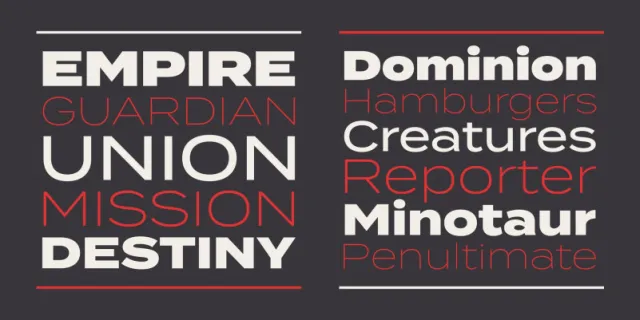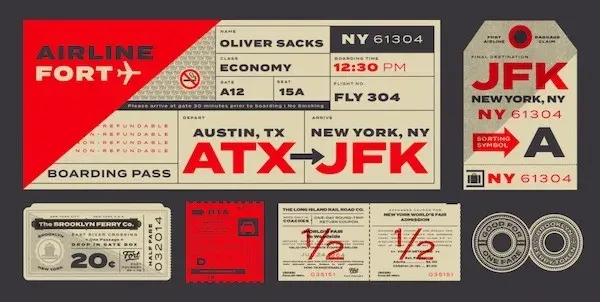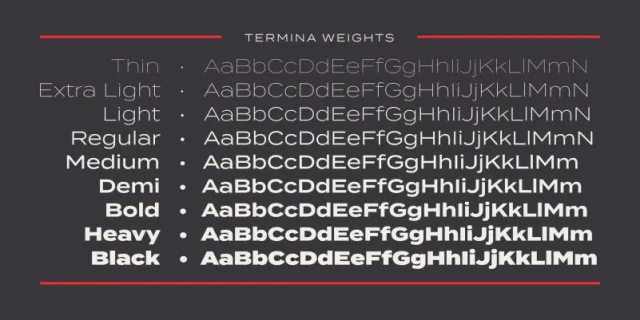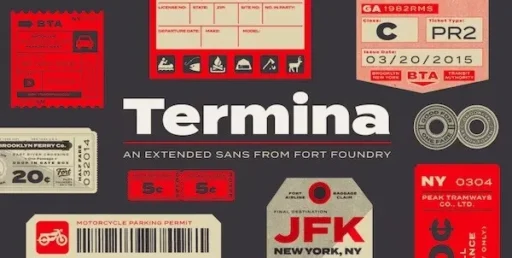
Termina Font Family
Termina is a bold sans serif with strong, clear letterforms. It works great for web headings and logos. This font was designed by Fort Foundry. You can use it for ads, pull quotes, and small descriptors. Its high x‑height and wide shapes keep text legible at small sizes. Termina brings power and clarity to every design.
Termina Font Family is a Sans Serif Fonts font that brings a professional and versatile look to your projects. Termina is a bold sans serif with strong, clear letterforms.